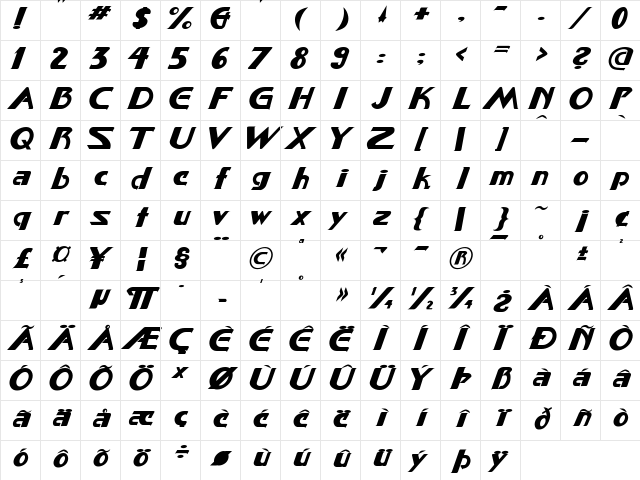
Star Cinema Bold Italic
Star Cinema Family
Complete Star Cinema Bold Italic glyph index. Displaying only characters natively supported by Star Cinema Bold Italic font.
Design Context for Star Cinema
Star Cinema is a composed and adaptable typeface that performs quietly and consistently across a wide range of design contexts. The slanted form adds forward momentum and visual energy. Its bold stroke weight gives it real presence on the page.
Pro Tip: Use Star Cinema for emphasis, pull quotes, and subheadings where its slanted energy can add rhythm to the layout.